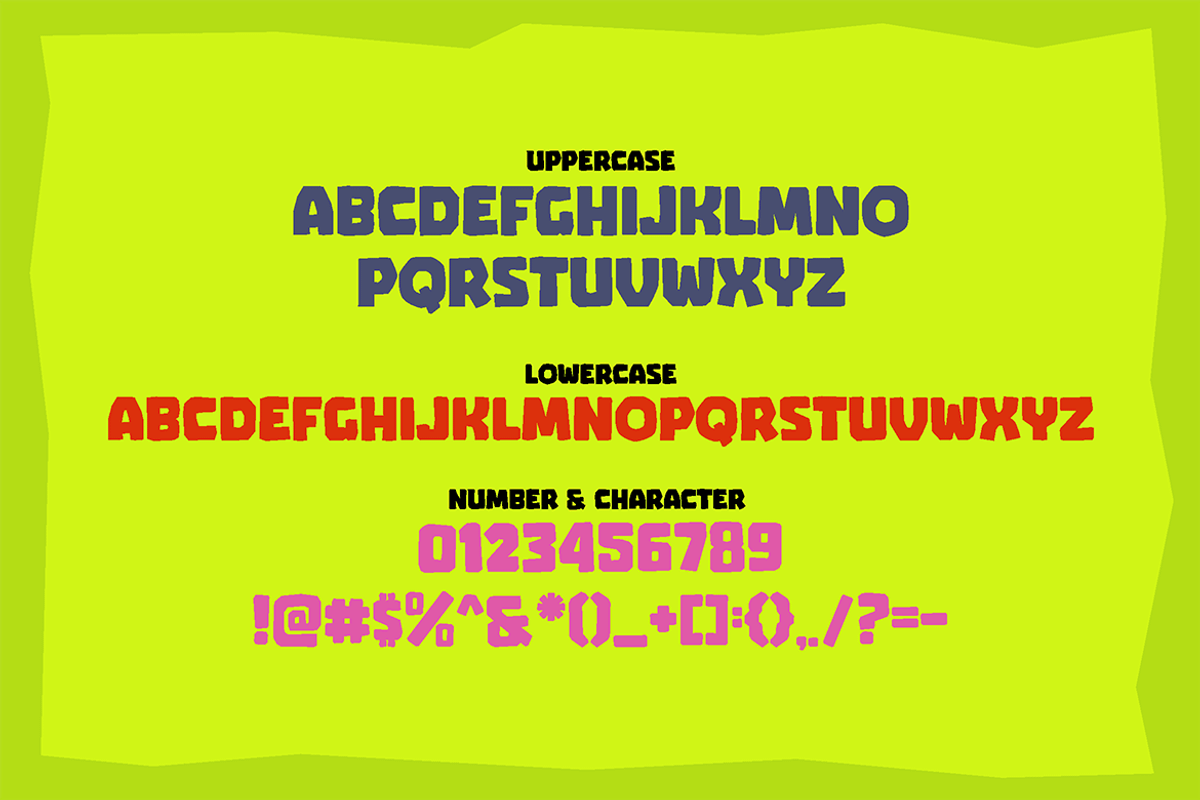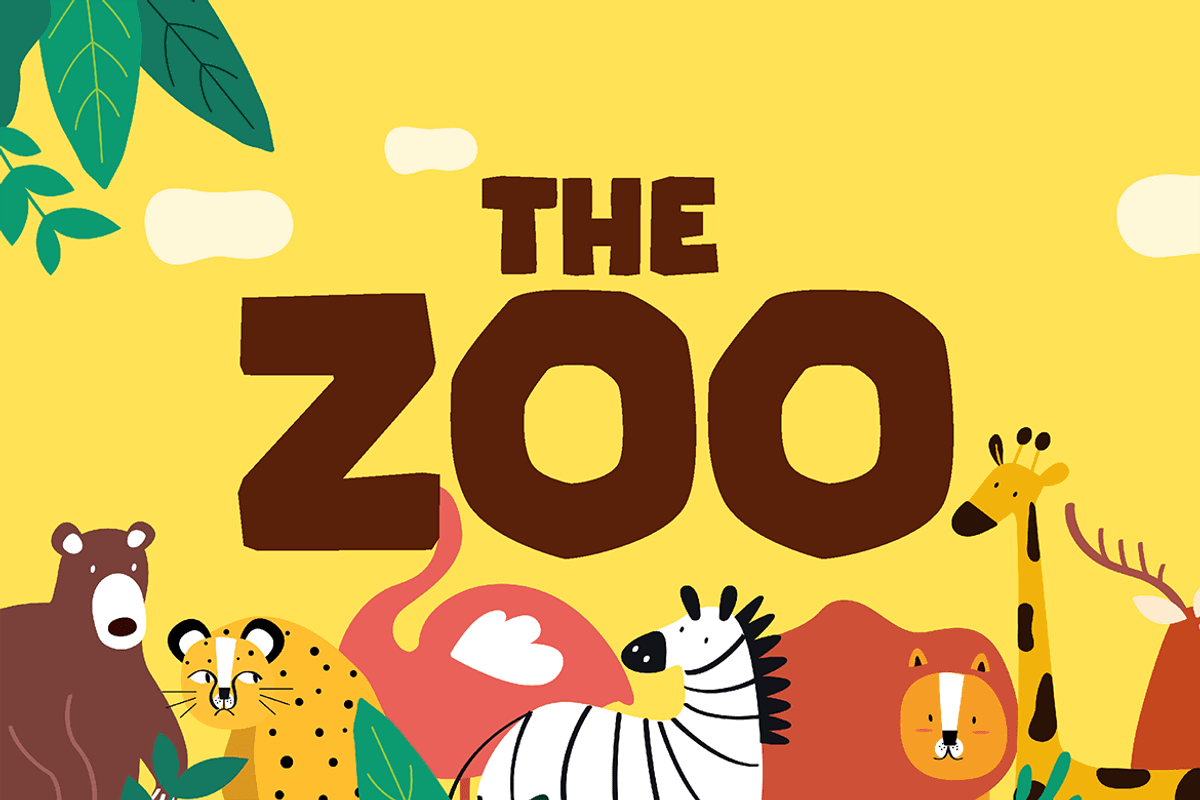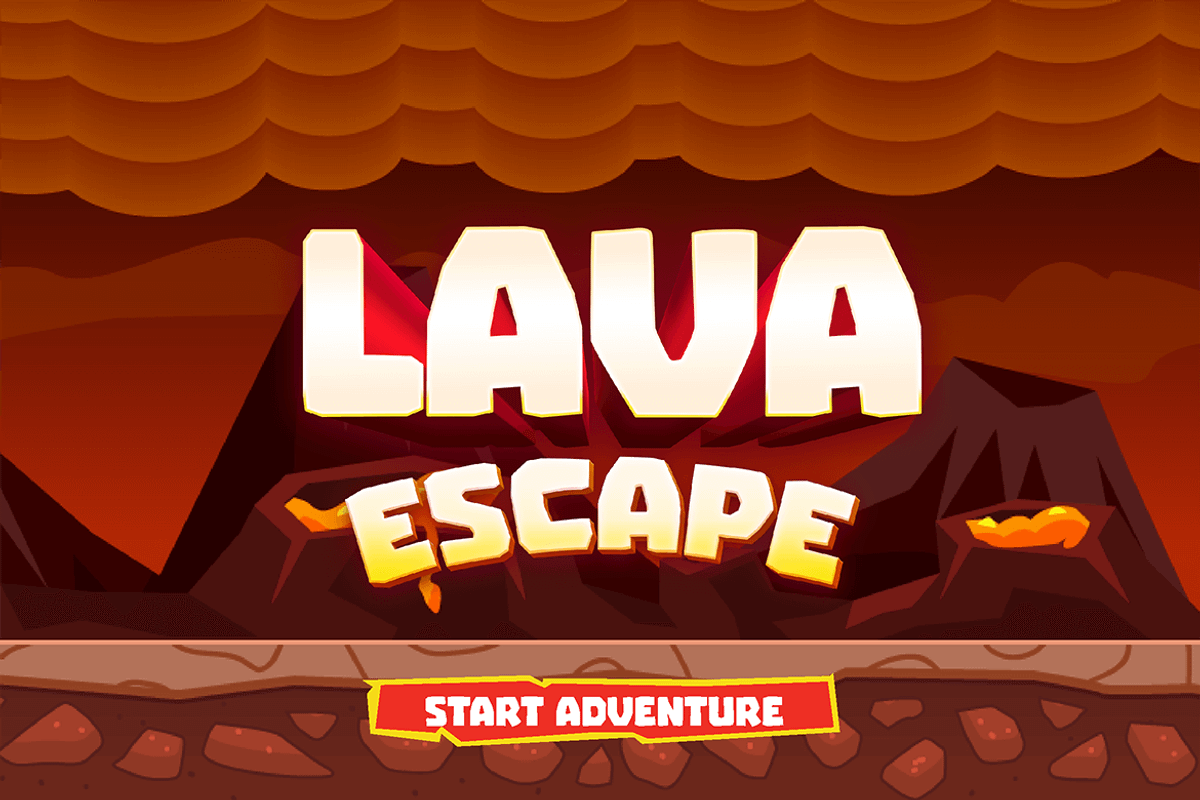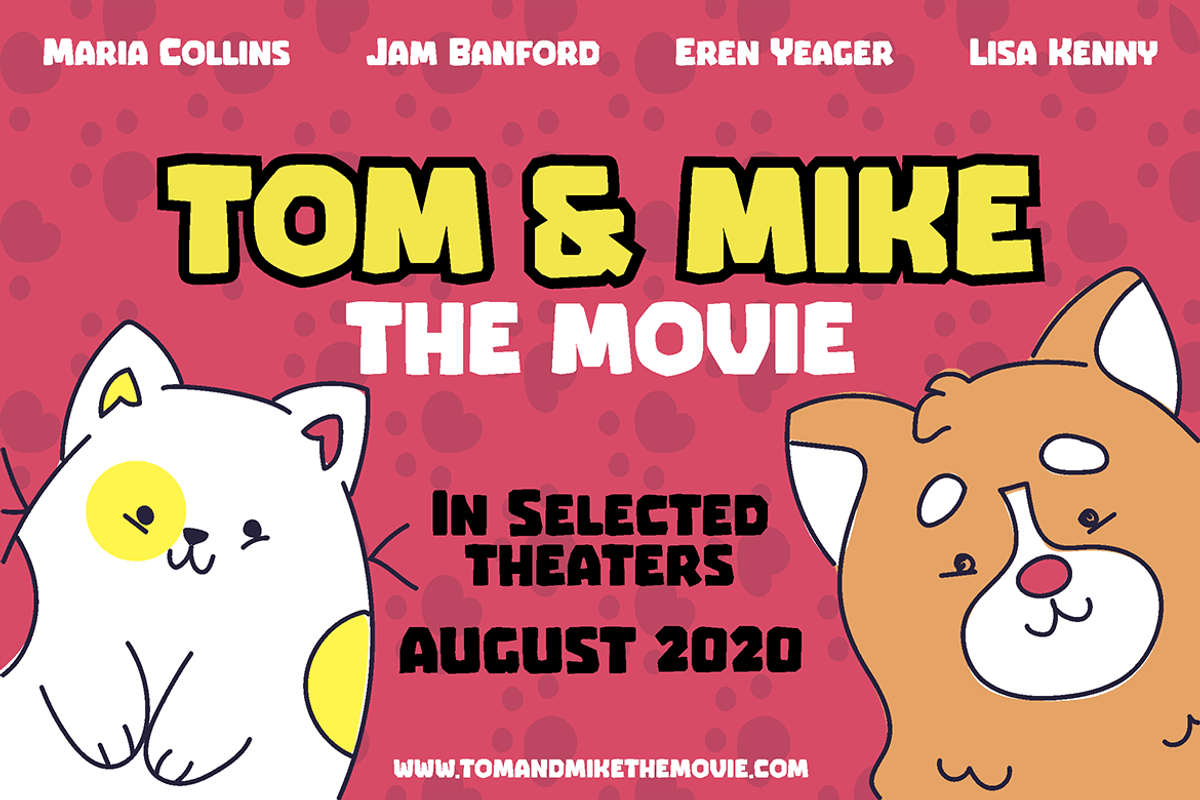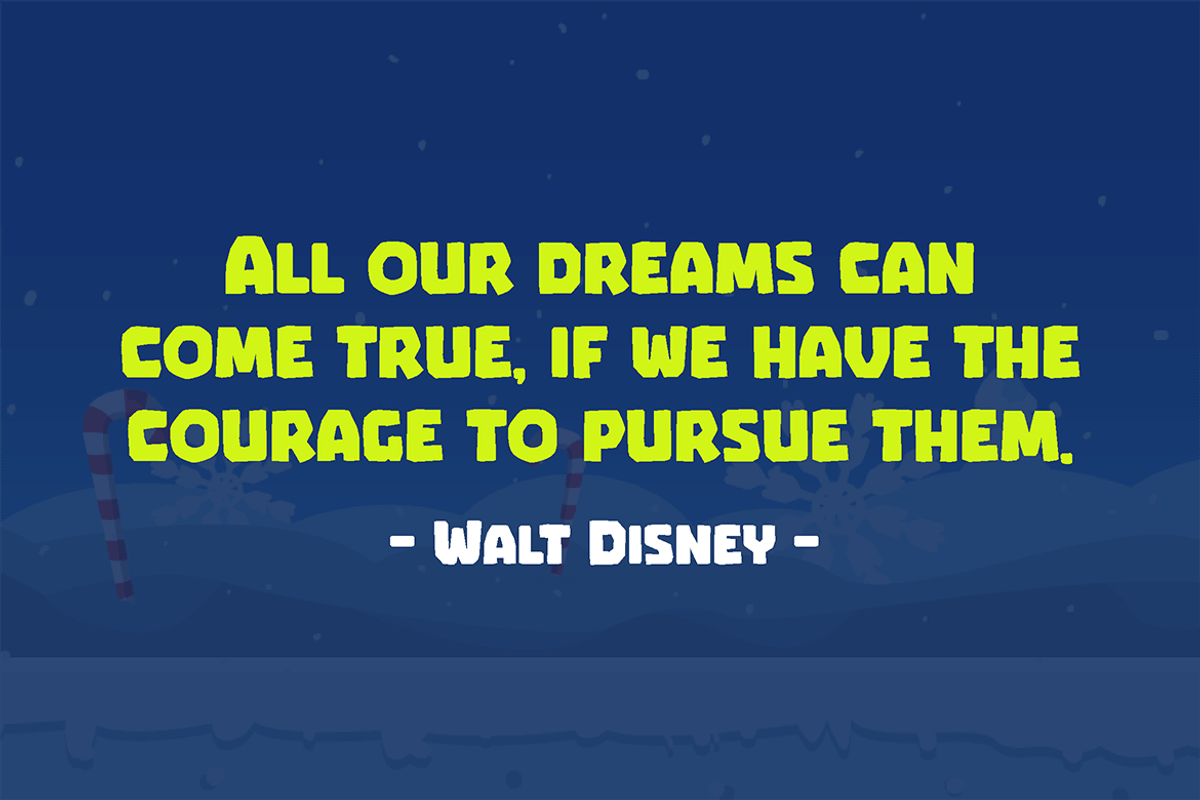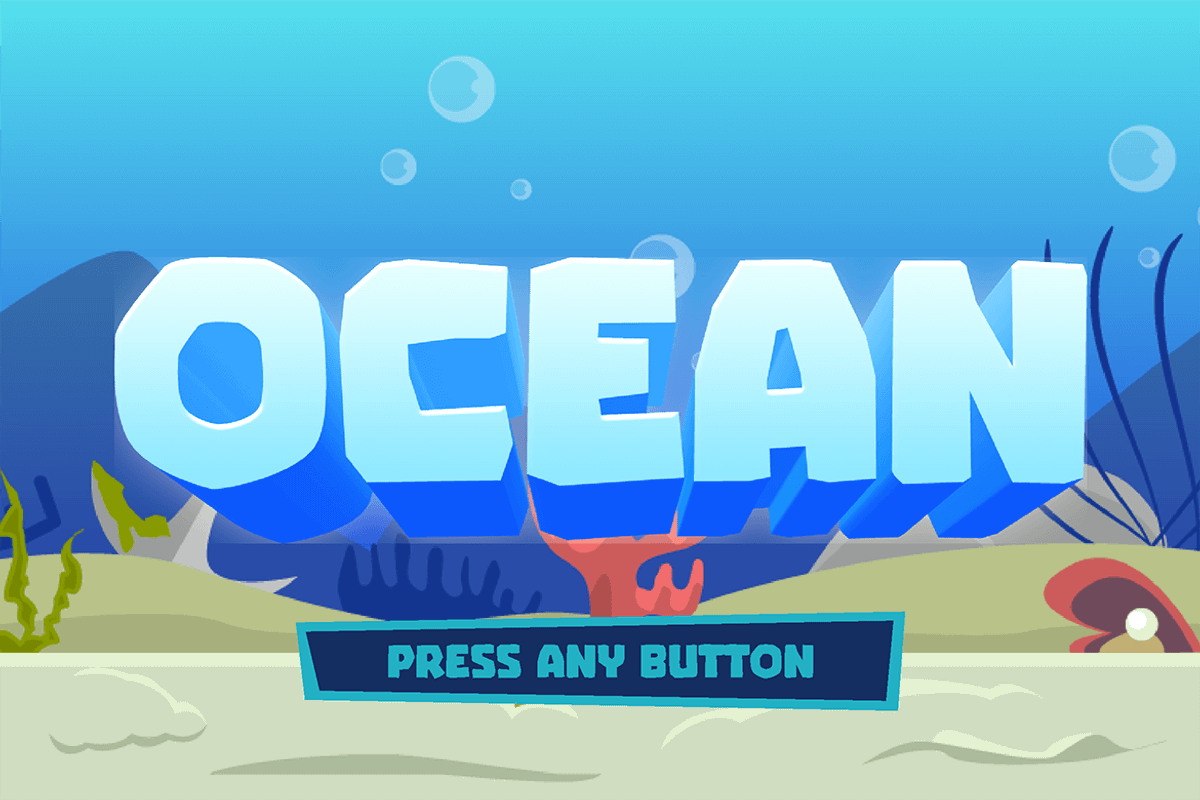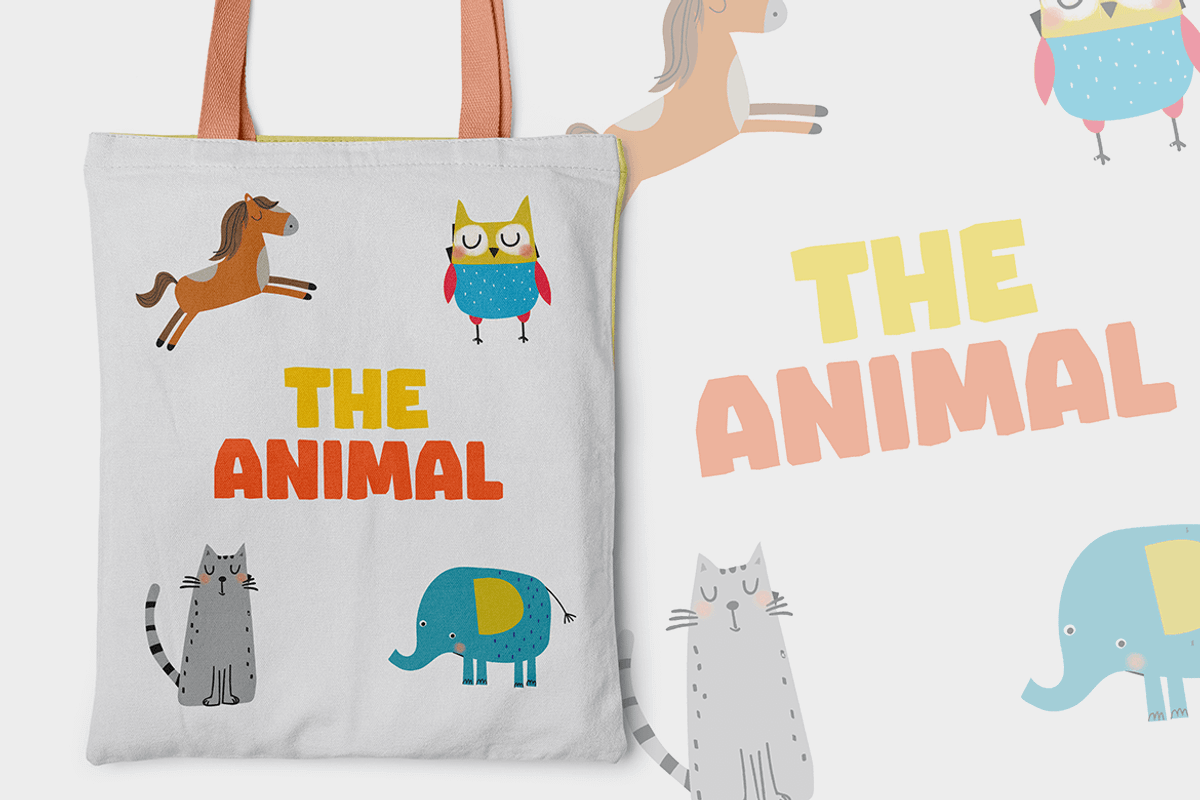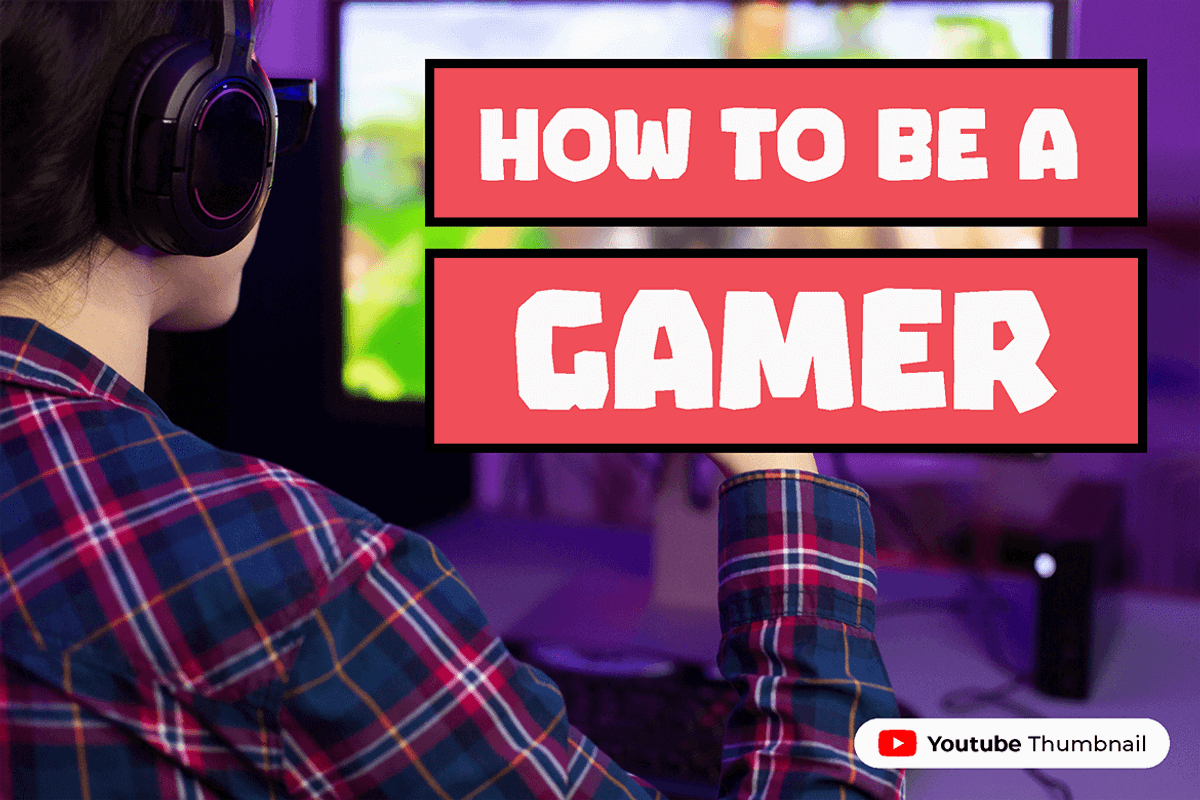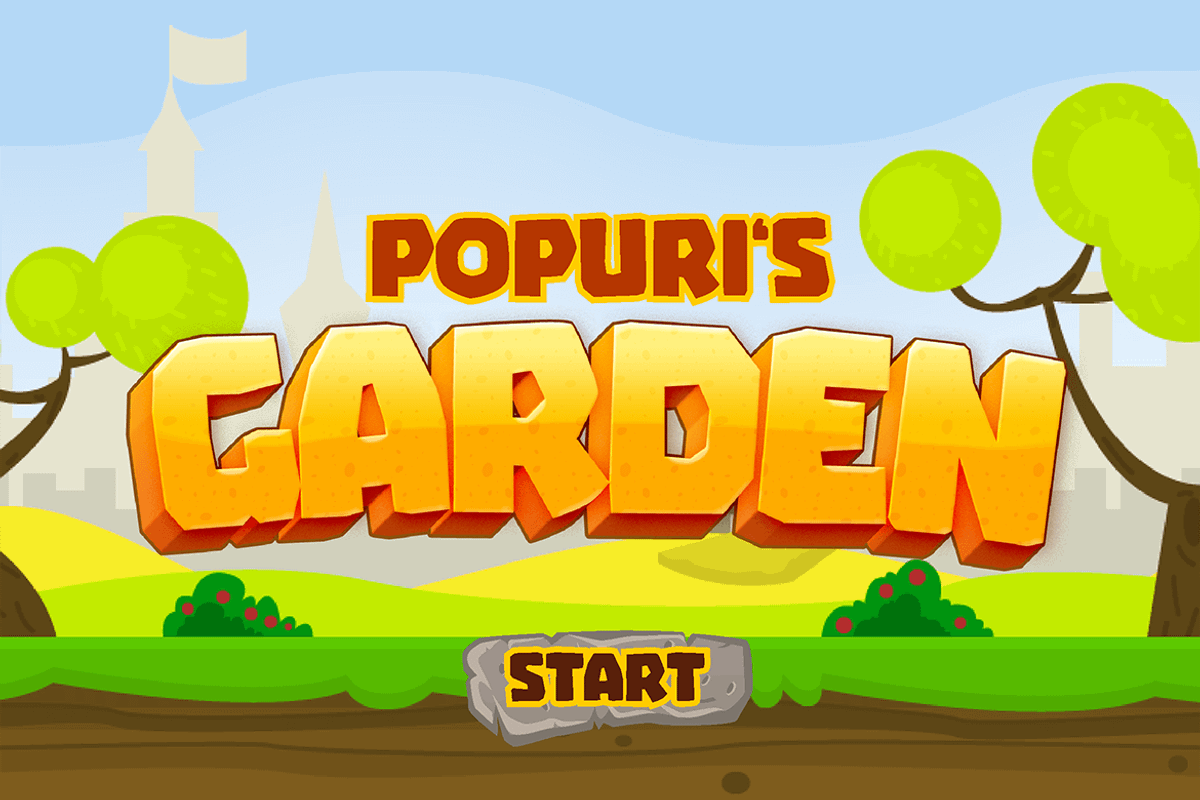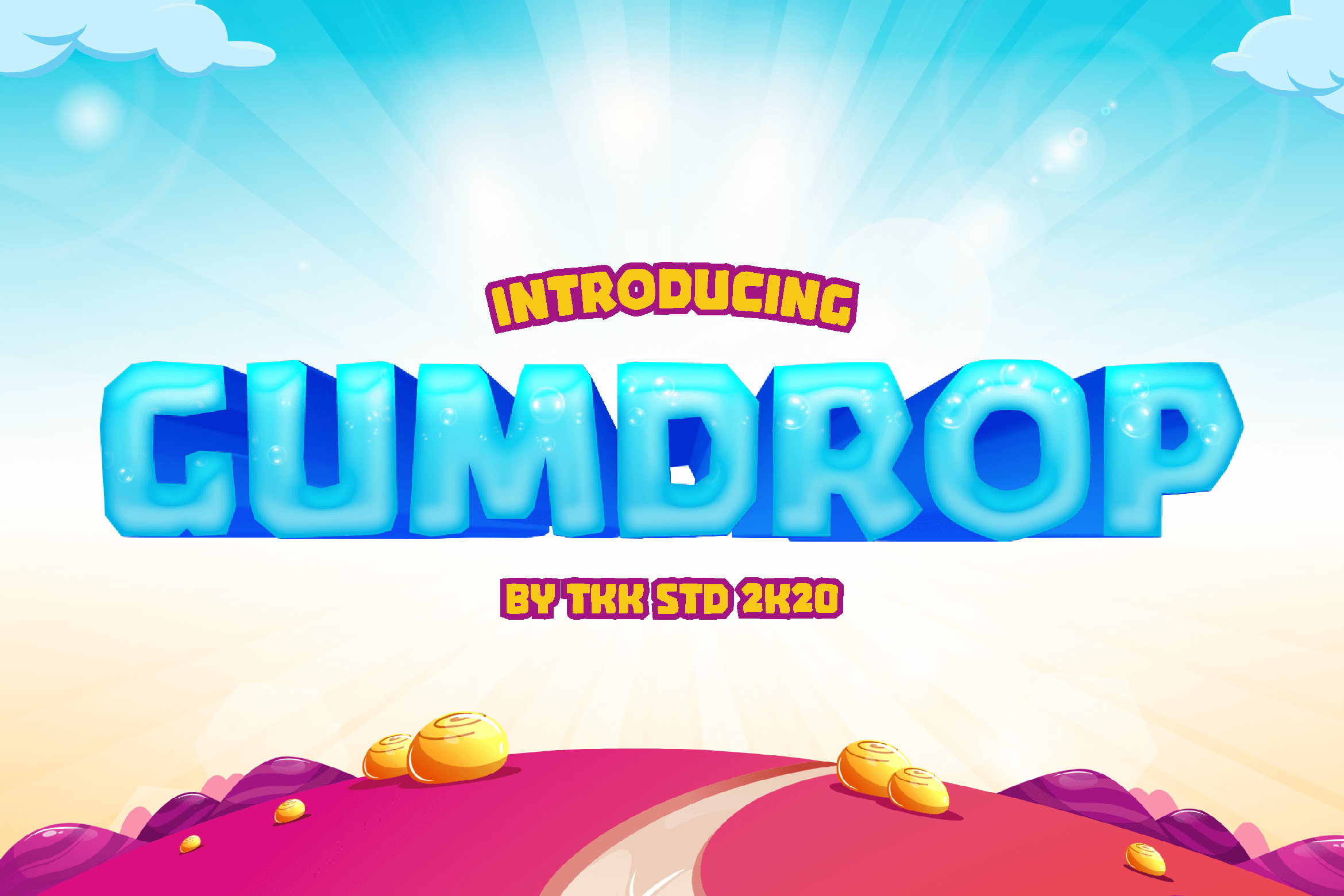
GUMDROP - Gaming Font
GUMDROP gaming font is a blocky shape font with a fun attitude. Suit perfectly for online games, android or ios game, adventure poster, children movie title, fast food menu, magazine, youtube covers, youtube thumbnails, social media page covers and so on… Happy designing. Whatís Included :